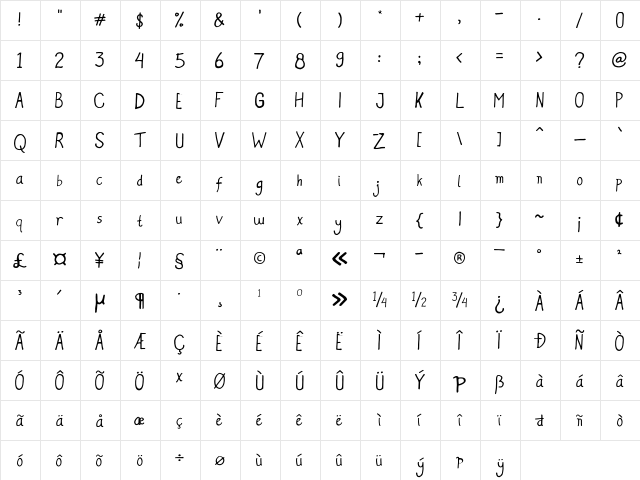
Stoony Regular
| Designer | Abi Afandi, Primitype Studio. 2020 |
Design Context for Stoony Typeface
Stoony is a composed and adaptable typeface that performs quietly and consistently across a wide range of design contexts.